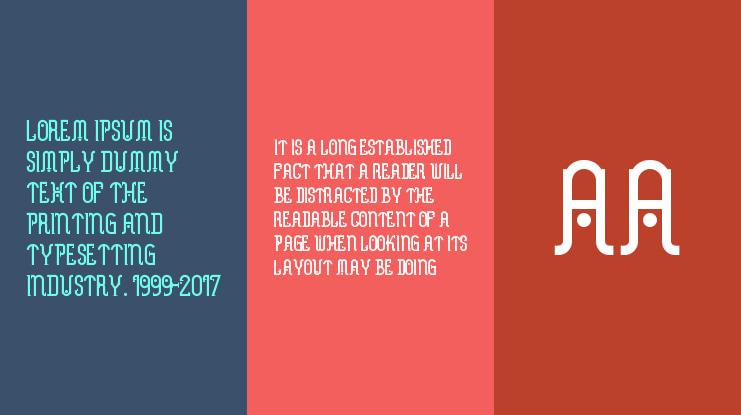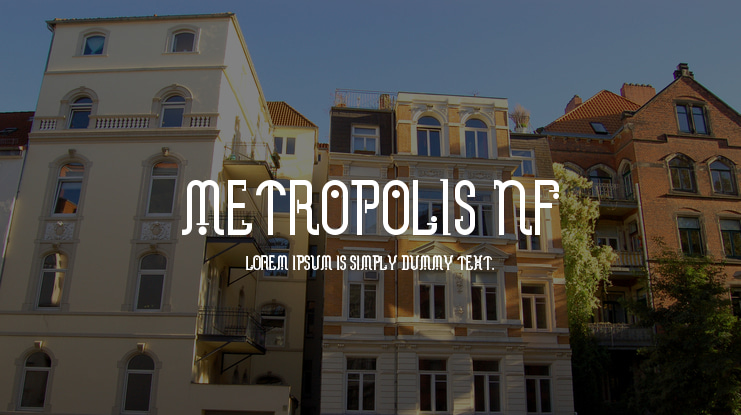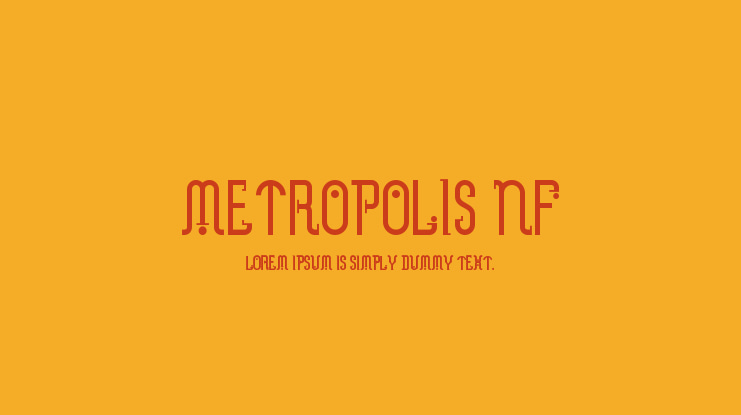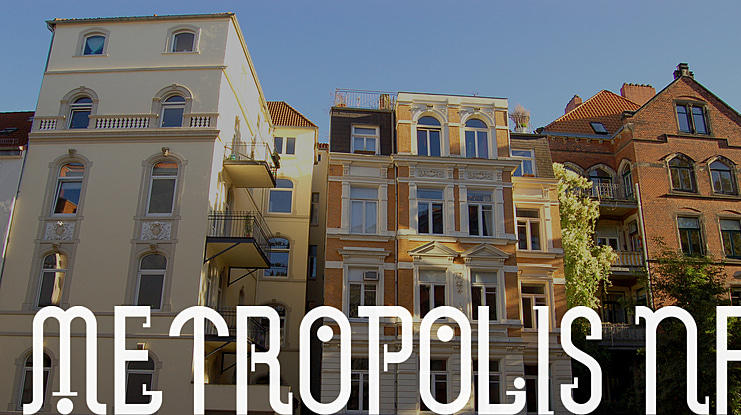
I discovered the inspiration for this font on a contemporaneous poster for Fritz Langâs classic silent film of the same name, and liked it a lot. A very strange 1920s idea of futuristic lettering, but a whole lotta fun.